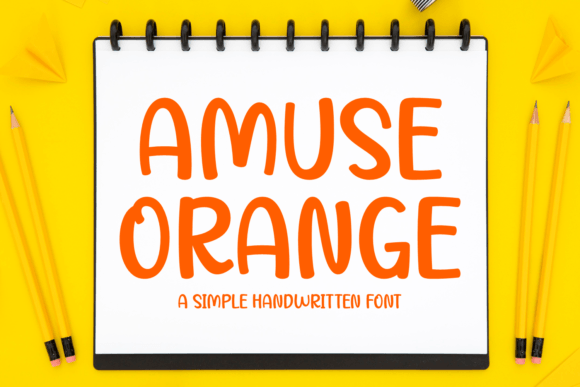
The Amuse Orange Font: A Simple yet Playful Design Essential
I’ll never forget the time I was working on a wedding invitation project, and my client asked for a font that was both elegant and playful. I scoured the internet, trying out font after font, but nothing seemed quite right. That was until I stumbled upon the Amuse Orange Font. It was like a breath of fresh air – simple, yet full of character. In this article, I’ll share my experience with this beautiful font, and explore its features, uses, and alternatives.
A Personal Review of Amuse Orange Font
As a designer, I’m always on the lookout for fonts that can elevate my work. The Amuse Orange Font has become a staple in my design toolkit, and here’s why:
- ✨ Simple and playful: The Amuse Orange Font has a carefree, handwritten feel that’s perfect for a variety of design projects.
- ✅ Highly versatile: This font works beautifully for wedding invitations, branding, editorial design, signage, and displays.
- ✅ Easy to read: The font’s clean lines and simple shapes make it easy to read, even at smaller sizes.
- ✅ Perfect for digital media: The Amuse Orange Font looks great on screens, making it ideal for social media graphics, presentations, and more.
- 🤔 Limited glyphs: The Amuse Orange Font has a limited character set, which may not be suitable for projects that require a wide range of special characters.
- ⚠️ Not ideal for body text: While the font is easy to read, it’s not designed for long blocks of text. It’s best used for headings, titles, and short paragraphs.
The Story Behind Amuse Orange Font
The Amuse Orange Font was designed by a talented typographer who’s passionate about creating beautiful, functional fonts. Inspired by the simplicity and playfulness of handwritten scripts, the designer created Amuse Orange as a versatile font that could be used for a wide range of design projects. With its clean lines, simple shapes, and elegant feel, Amuse Orange has become a beloved font among designers and crafters.
- Q: What is the Amuse Orange Font best used for?
- A: The Amuse Orange Font is best used for wedding invitations, branding, editorial design, signage, and displays.
- A: No, the Amuse Orange Font is not designed for long blocks of text. It’s best used for headings, titles, and short paragraphs.